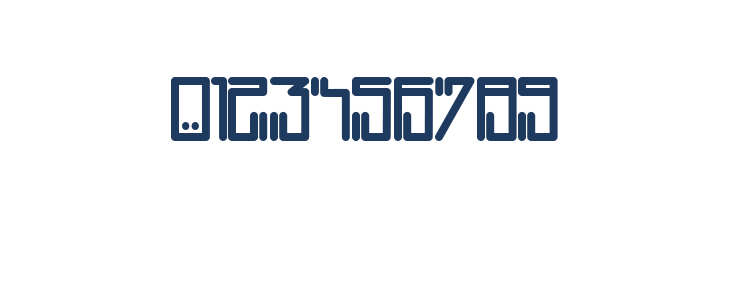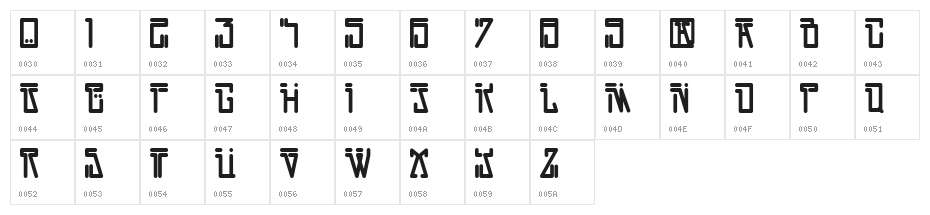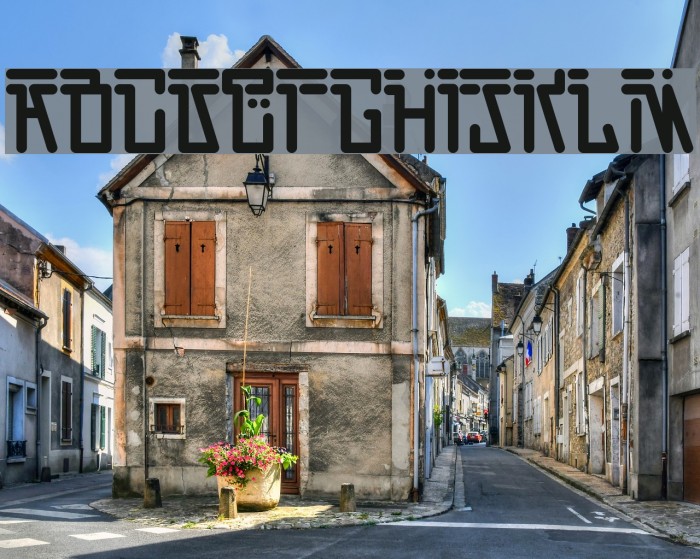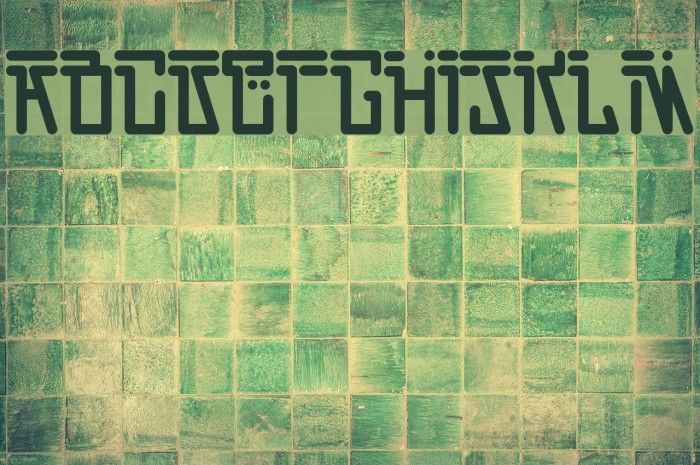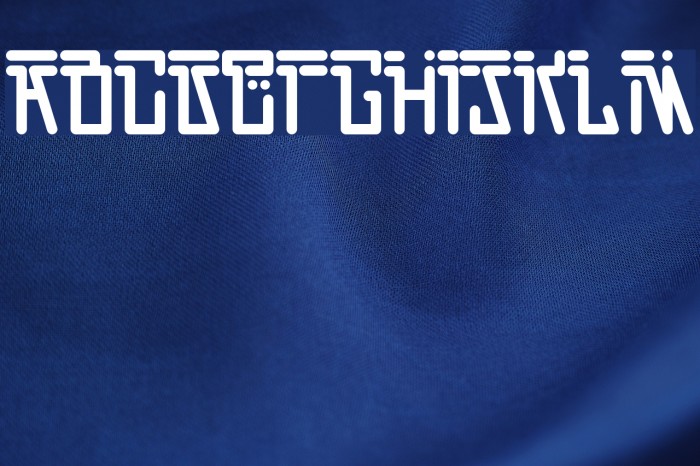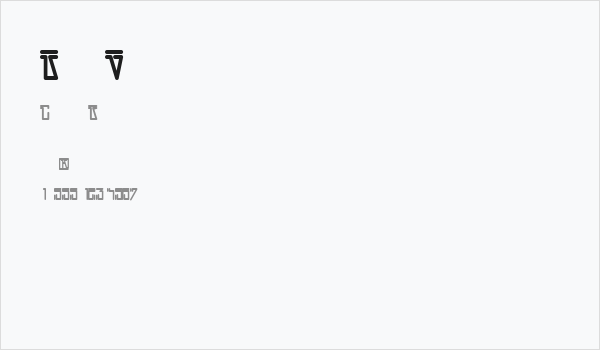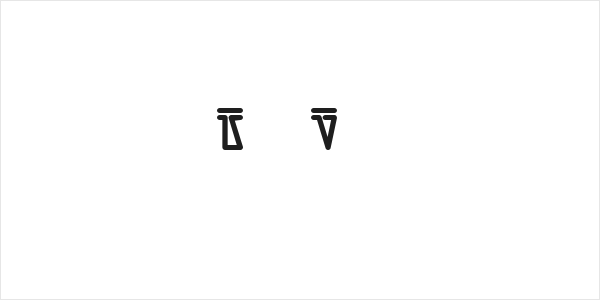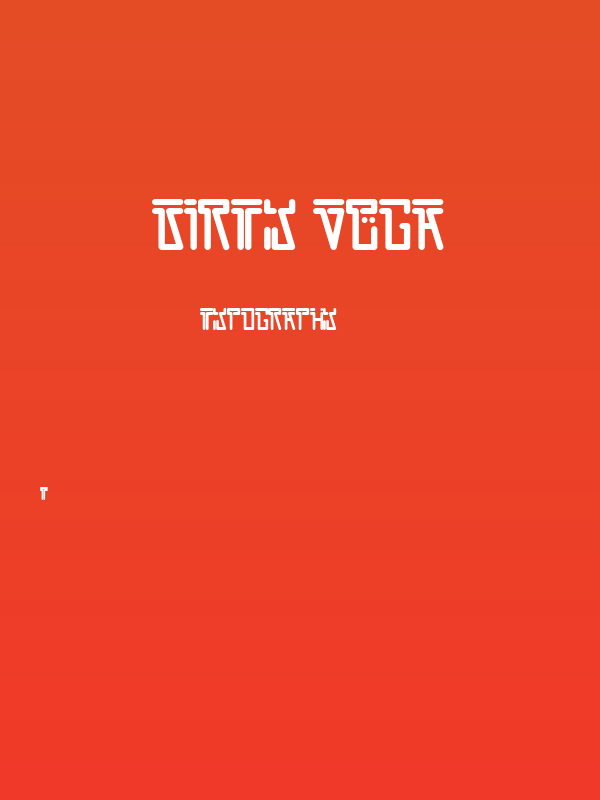
Dirty Vega Font
Dirty Vega Description
This font features a bold and futuristic design with a distinct geometric structure. Each character is composed of thick, uniform strokes with rounded corners, giving it a modern and tech-inspired appearance. The letters are highly stylized, incorporating unique elements such as dots and lines that add a decorative touch. The overall look is both striking and unconventional, making it ideal for projects that require a strong visual impact. The font maintains a consistent weight throughout, ensuring readability while still offering an artistic flair.
| Overall Style | Futuristic, Modern |
| Proposed Projects | Ideal for sci-fi themed posters, video game titles, technology branding, and futuristic event invitations. |